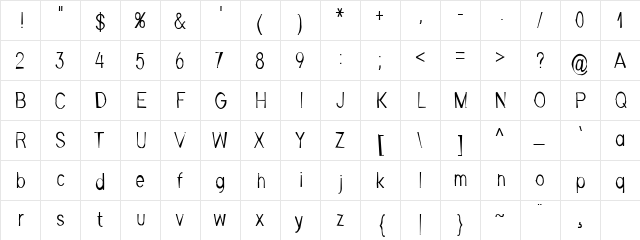
Jan Exodus regular
| Foundry | tutus0929 |
| Designer | tutus0929 |
Design Context for Jan Exodus Typeface
Jan Exodus takes a measured approach to typography — its balanced proportions and neutral character make it a reliable workhorse for both digital and print work.